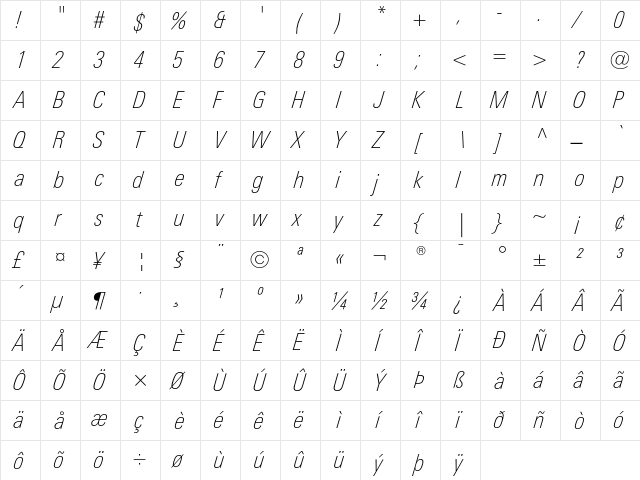
LinotypeUnivers CondThinItalic
Design Context for LinotypeUnivers Typeface
LinotypeUnivers takes a measured approach to typography — its balanced proportions and neutral character make it a reliable workhorse for both digital and print work. The slanted form adds forward momentum and visual energy. Its slender proportions lend an understated elegance to any composition. The condensed width makes it efficient for tight spaces without sacrificing legibility.
Pro Tip: Try LinotypeUnivers for annotation and caption copy alongside an upright companion — the contrast in angle creates a dynamic but ordered typographic system.